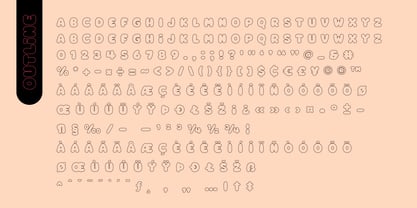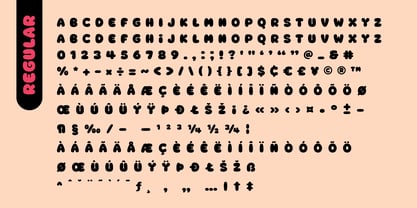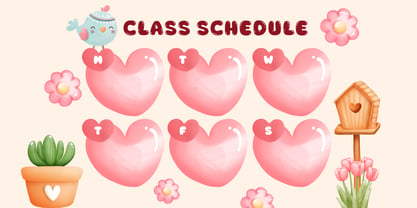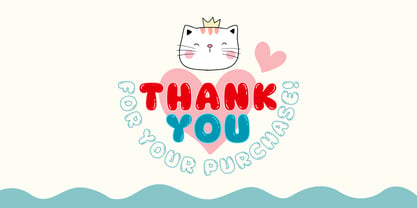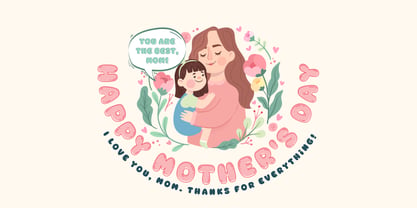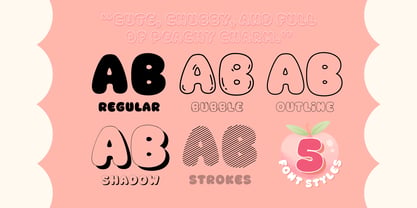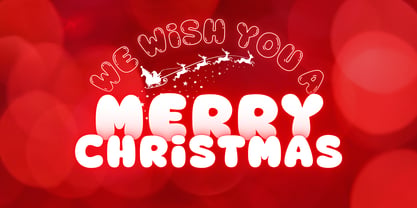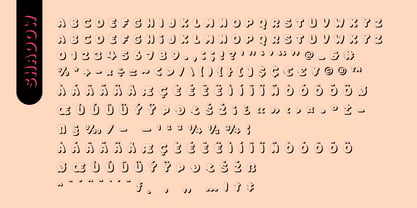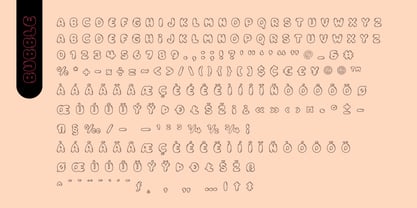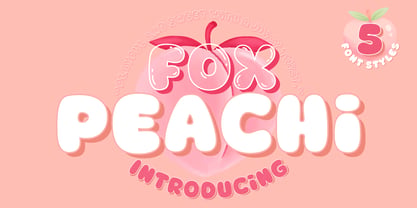
Fox Peachi
The Fox Peachi Font Family was designed by Rattana Rattanawan and published by Fox7. Fox Peachi contains 5 styles and family package options. More about this family
Fox Peachi, a bubbly and peachy font family that comes in 5 delightful styles —perfect for adding charm to your creative projects. Whether you're designing for kids, branding sweet treats, or crafting fun quotes, this font will sprinkle your work with cuteness and personality!
Fox Peachi Regular – Soft, round, and perfectly plump. The base style with a smooth and friendly appearance.
Fox Peachi Bubble – A playful doodle style with inner lines for extra character. Great for adding a hand-drawn, fun effect.
Fox Peachi Outline – A clean and simple line version, light and airy with the same charming silhouette.
Fox Peachi Shadow – Bold and bouncy with built-in shadow effects to make your text pop!
Fox Peachi Strokes – A lined, textured style that gives a fun retro twist with a modern feel.
Perfect for Logos, Kids Designs, Packaging, Greeting Cards, Social Media, and more!